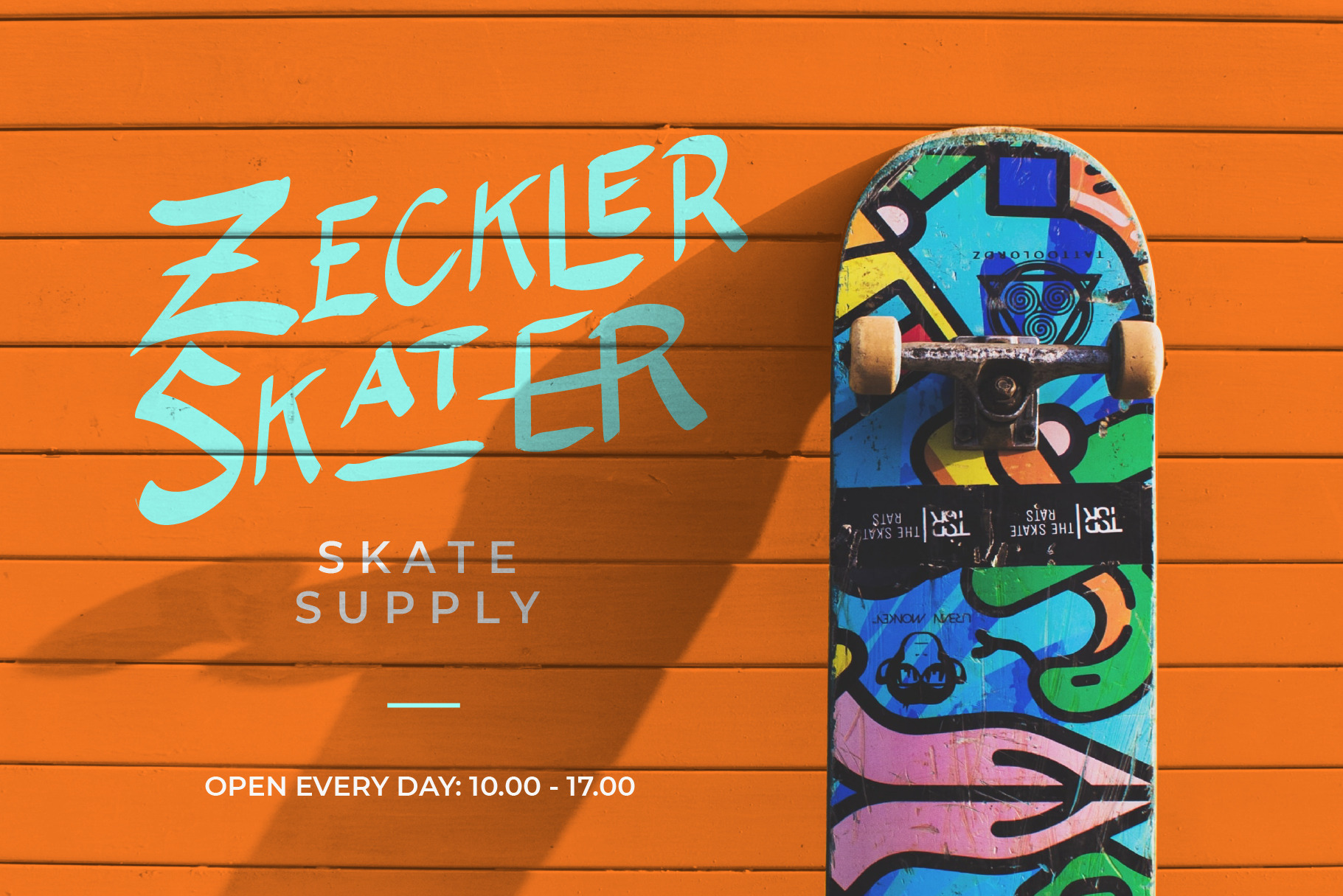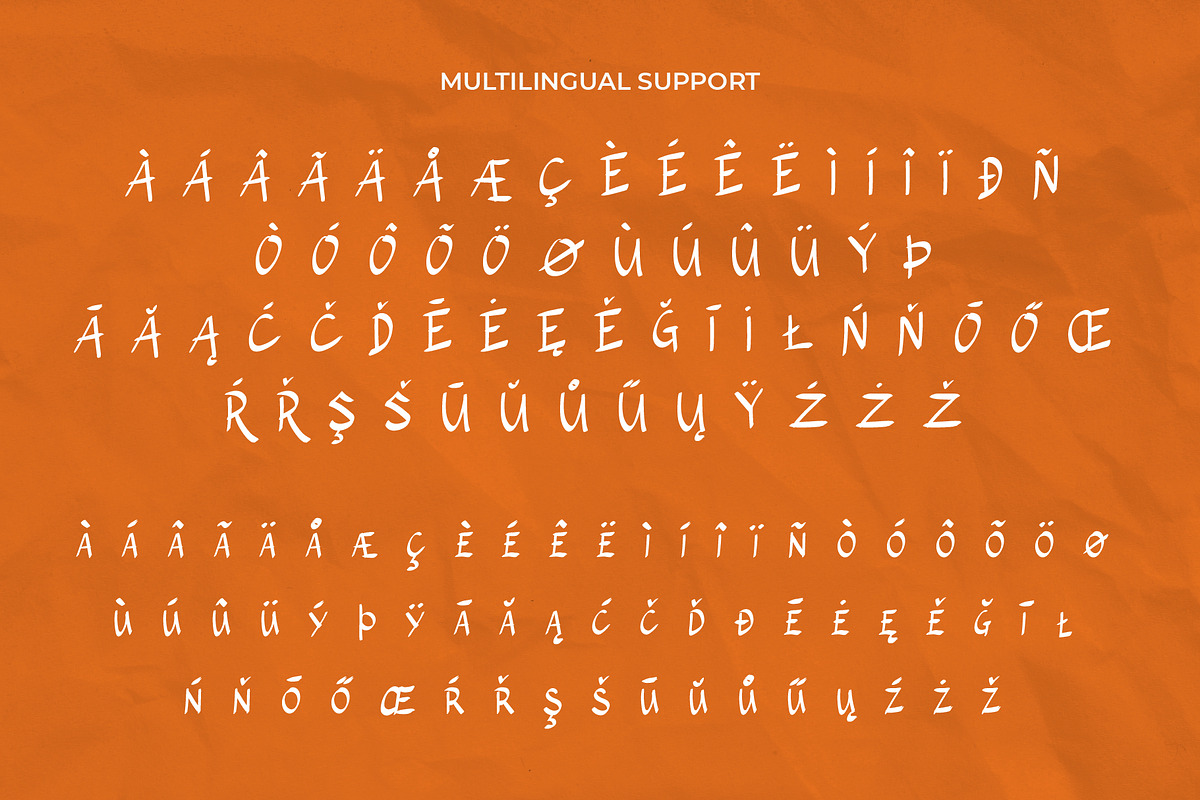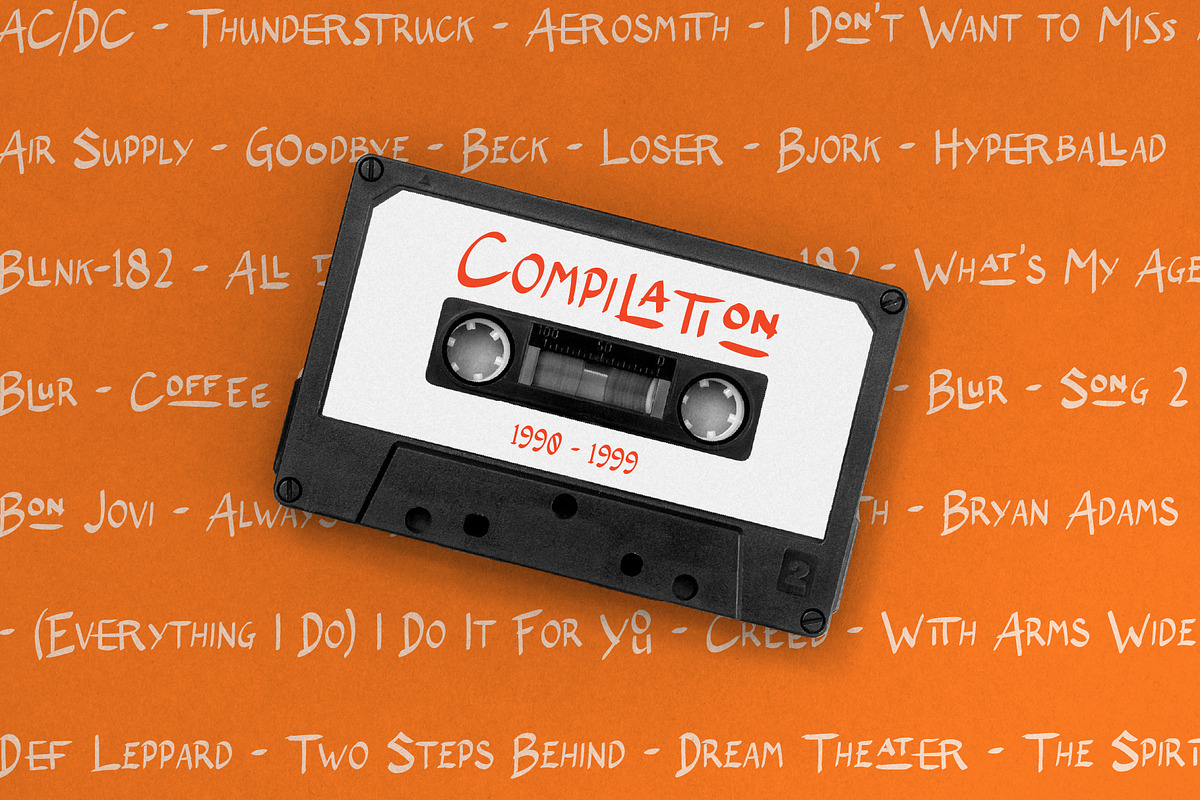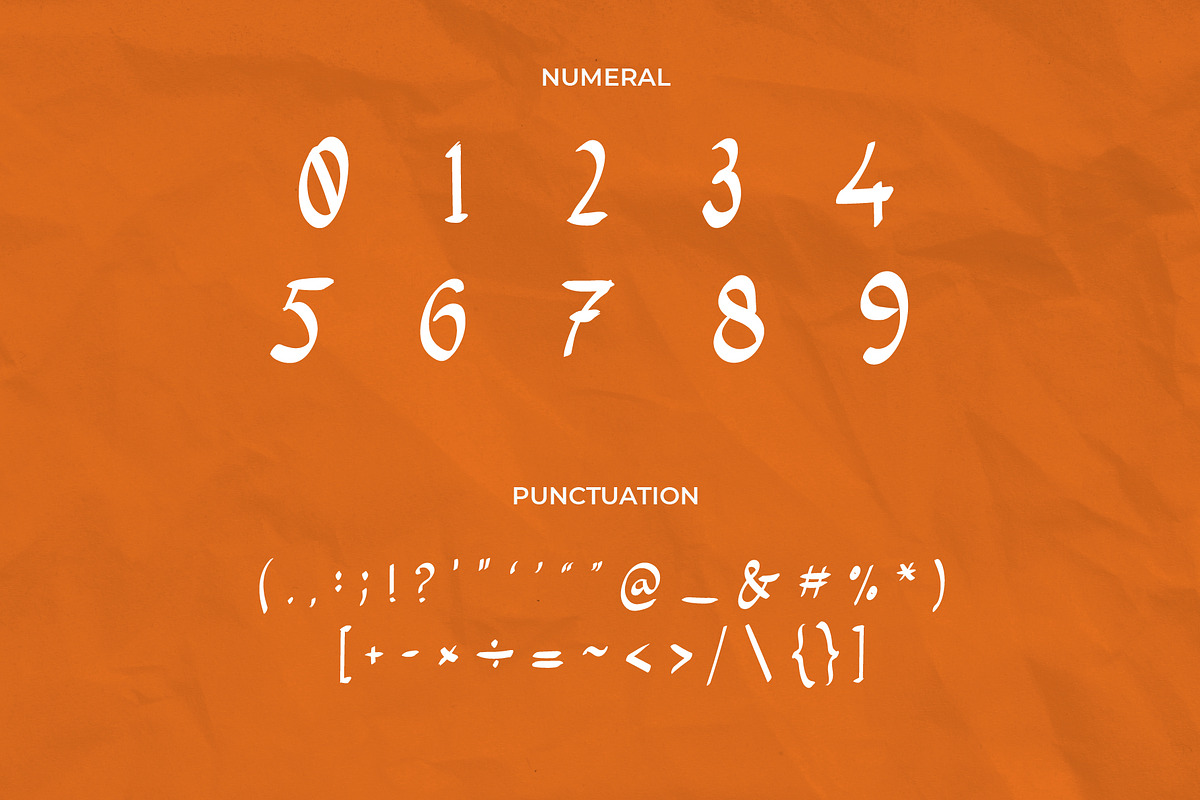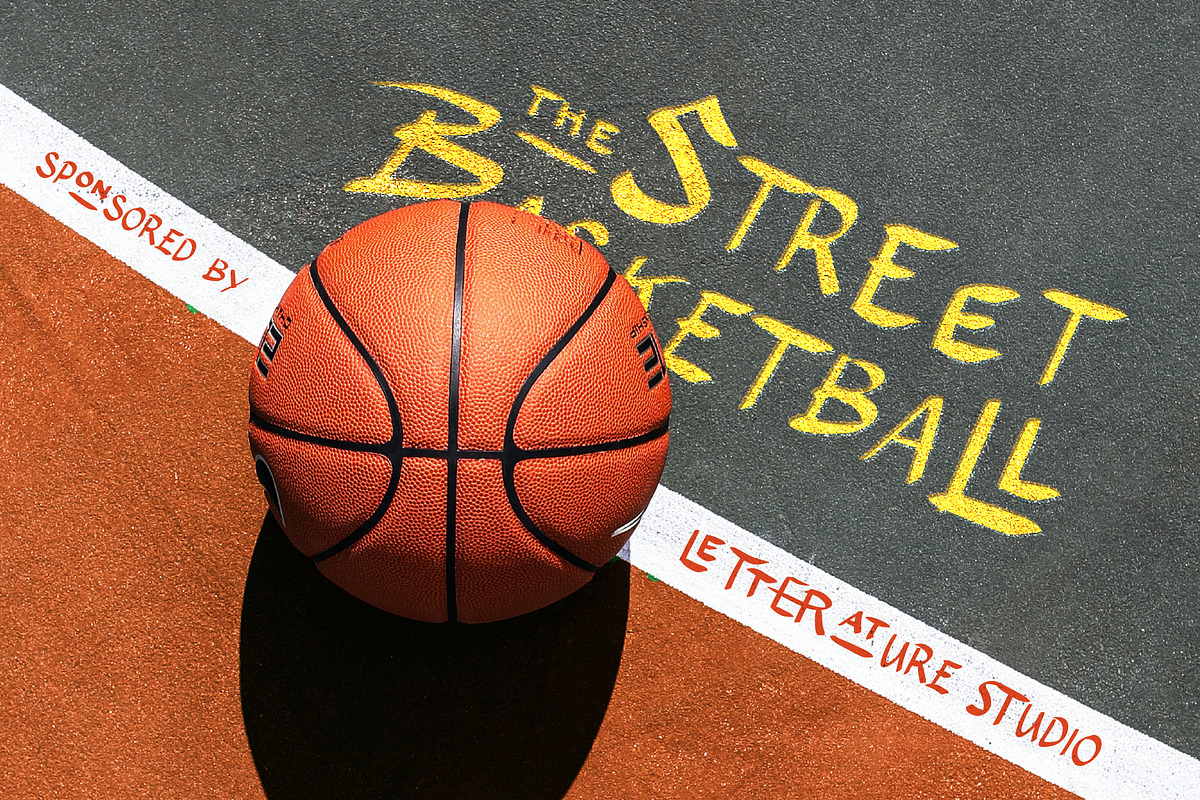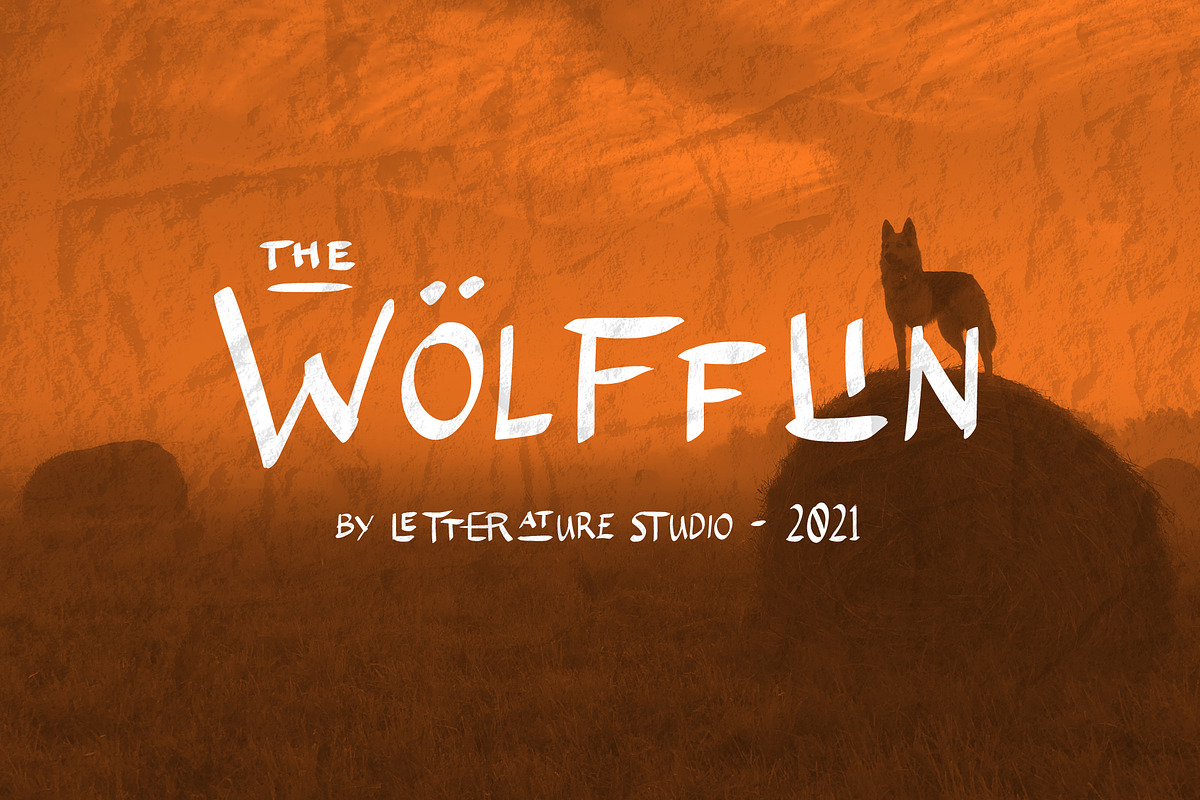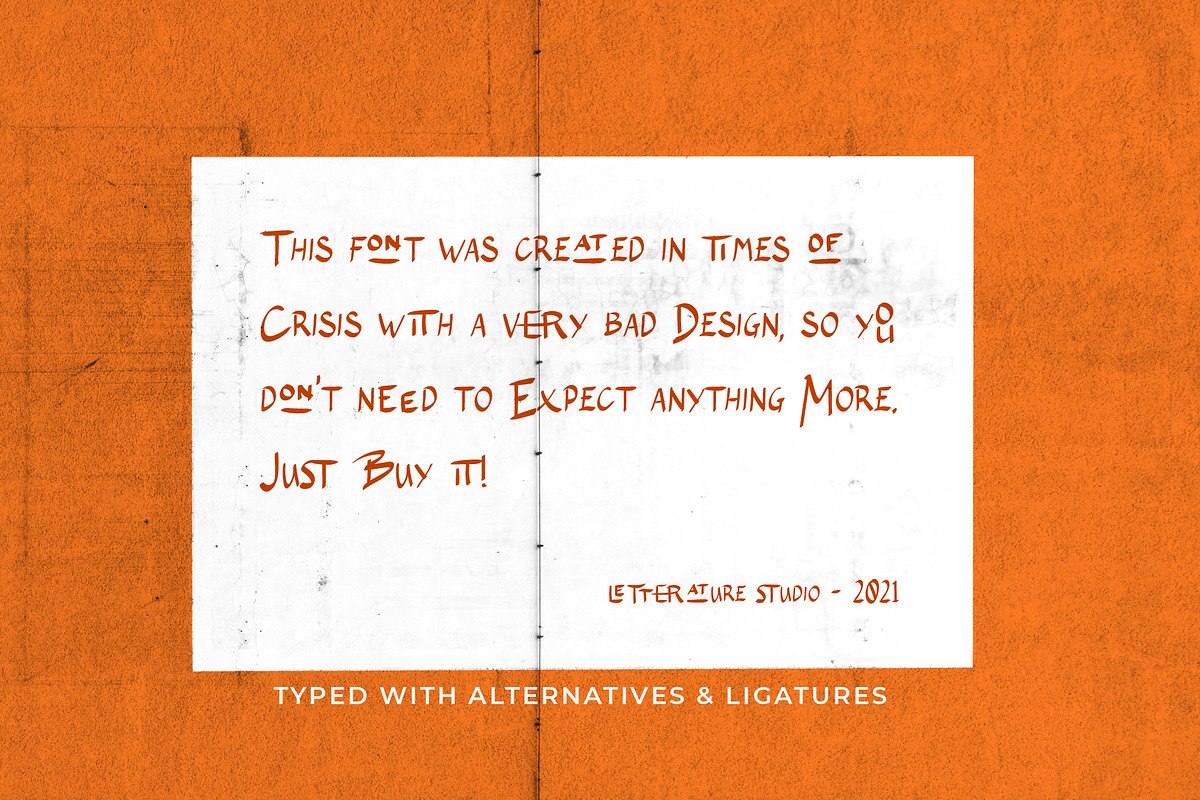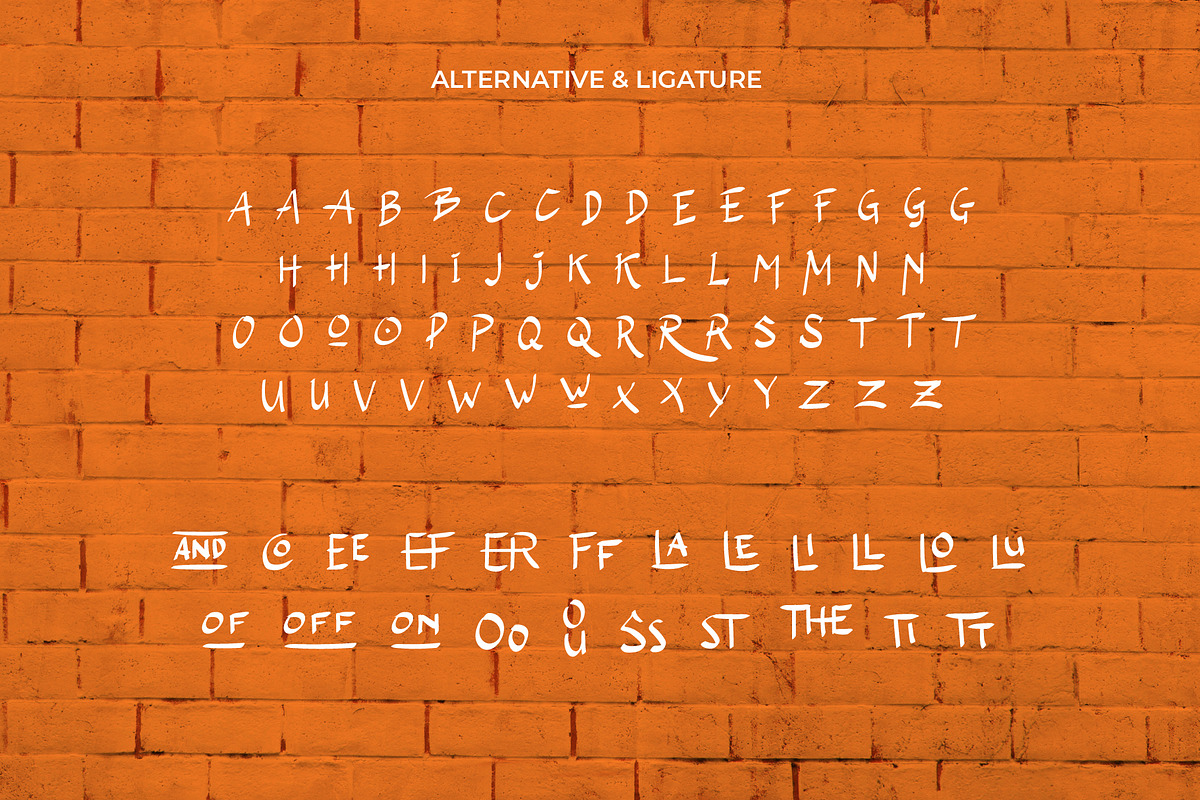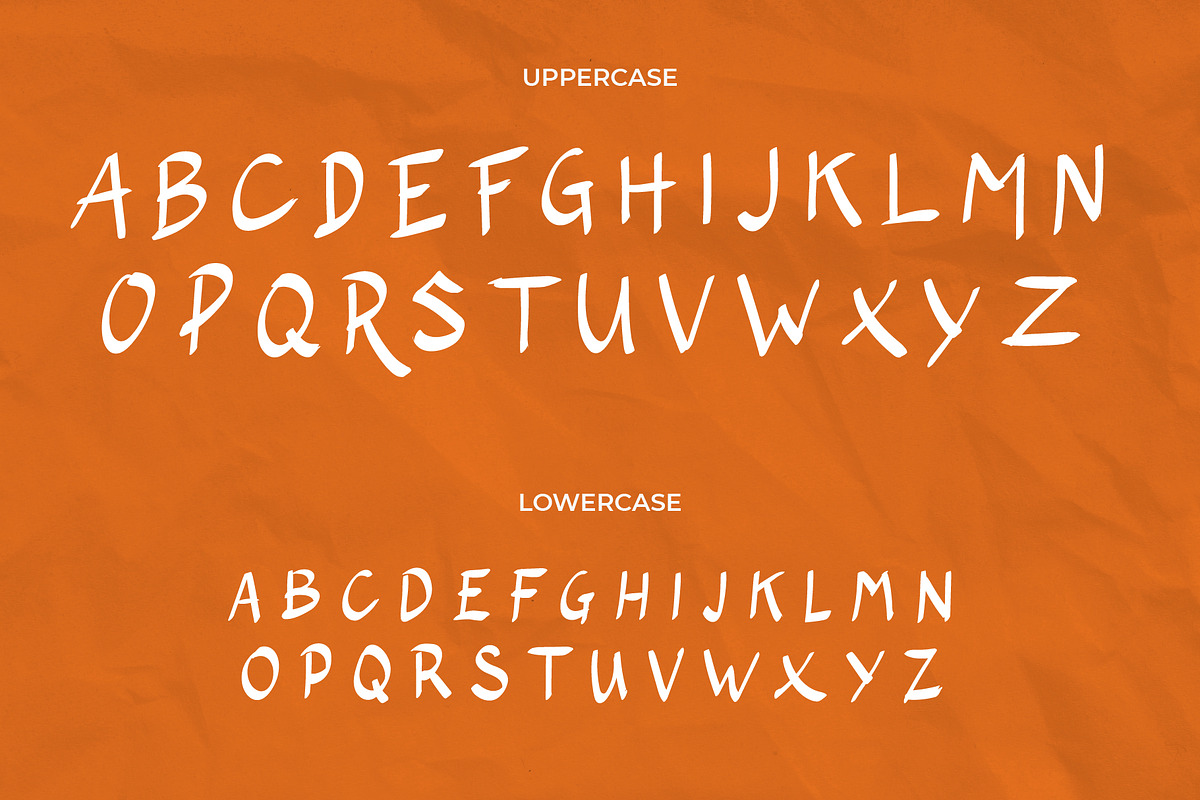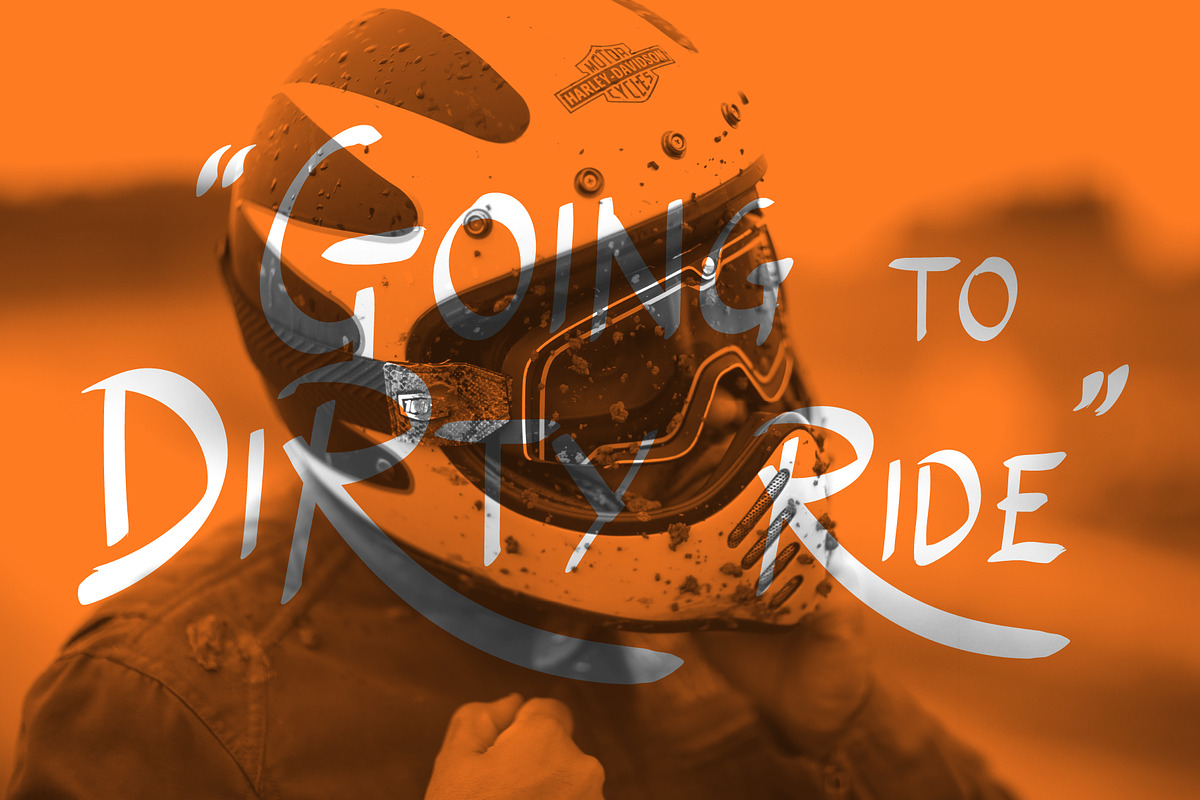
The Wolfflin // Handwritten Font
The Wolfflin is font with handcrafted feel that perfectly suited to logo, typography quotes, magazine or book cover, website header, flyer, clothing, branding, packaging design and more.
- Uppercase Characters
- Lowercase Characters
- Alternative Characters (alternate glyphs)
- Multilingual Support Characters